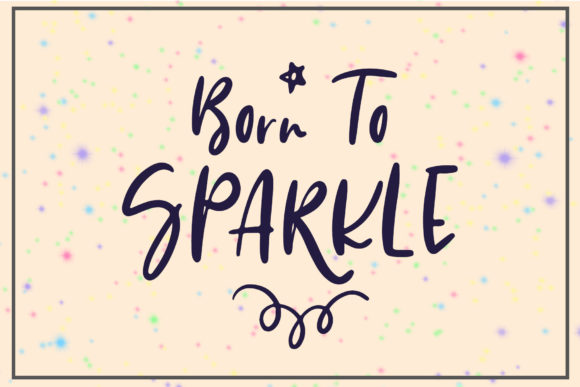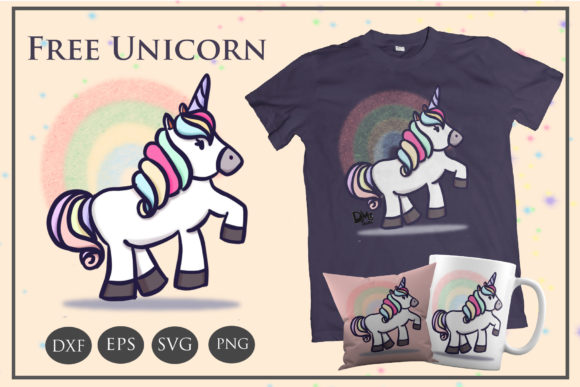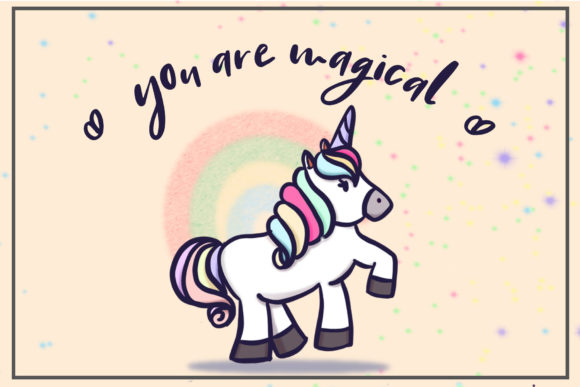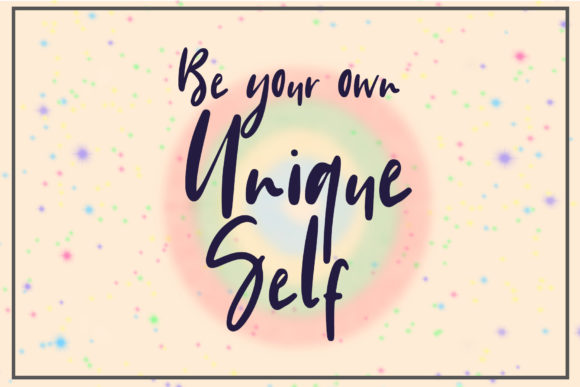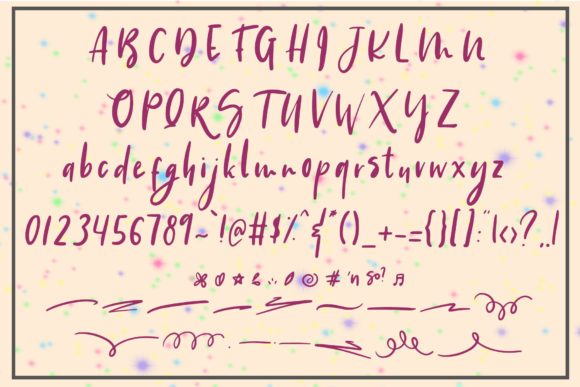
Introduction to Hippie Unicorn Font Font
Fonts play a crucial role in design, and the Hippie Unicorn Font font is a typeface that brings both character and versatility to any project. Whether you’re working on a branding project, a website, or a print design, the Hippie Unicorn Font font offers a unique style that can elevate your work.
Hippie Unicorn is a modern and stylish handwritten typeface.
It even comes with extra underline swashes and hand-drawn Unicorn doodles .
Key Features of Hippie Unicorn Font Font
Why Choose Hippie Unicorn Font Font?
The Hippie Unicorn Font font is more than just a typeface – it’s a design tool that helps you communicate your message with style and clarity. Its unique character set and versatile design make it suitable for a wide range of applications, from elegant invitations to bold headlines.
With its carefully crafted letterforms and balanced proportions, the Hippie Unicorn Font font ensures readability and visual appeal across all mediums.
What makes Hippie Unicorn Font font special?
The Hippie Unicorn Font font stands out with its unique design, exceptional readability, and versatility across various design applications.